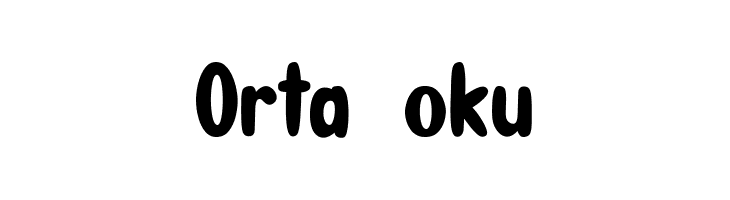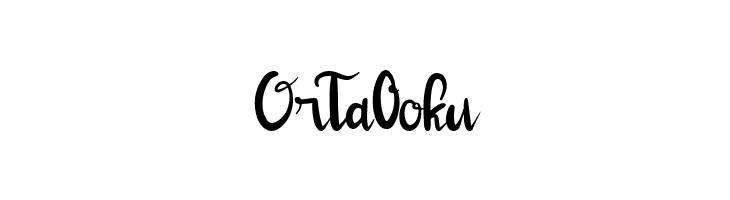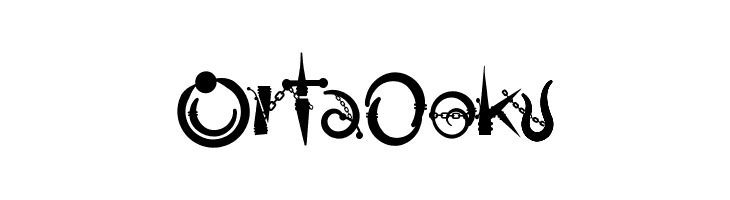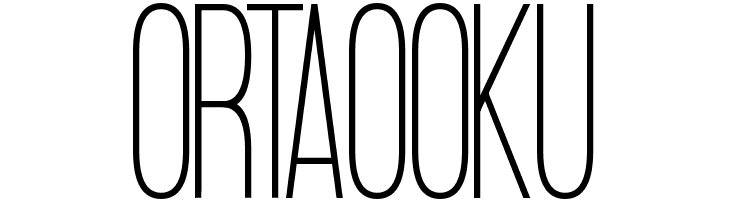
A brush-stroke font with a rustic, hand-painted appearance.
A bold, distressed font with a vintage, stencil-like appearance.
A whimsical and decorative serif font with playful curls and loops.
A bold, playful font with rounded edges and a modern, casual style.
An ancient script with wedge-shaped, angular characters used for monumental inscriptions.
A bold, angular font with a structured, formal style inspired by early 20th-century German design.
A bold, shadowed font with geometric forms and a modern twist.
A sophisticated cursive font with elegant, flowing strokes and dramatic contrasts.
A modern, geometric sans-serif font with clean lines and balanced spacing.
A modern, thin-lined font with a clean and sophisticated design.
A modern sans-serif font with rounded edges and a clean, approachable style.
A modern, clean sans-serif font with uniform strokes and rounded edges.
A bold, modern font with geometric and angular design elements.
A bold, geometric font with dynamic and stylized characters.
A playful and elegant script font with flowing, interconnected letters.
Handwritten script with tall, whimsical characters and playful strokes.
A bold, geometric font with strong visual impact and modern appeal.
A classic serif font with elegant, well-balanced strokes.
A playful, rounded font with smooth curves and a friendly appearance.
A bold, vintage-inspired font with strong, thick strokes and a commanding presence.
A dynamic and expressive handwritten font with fluid, flowing letterforms.
A bold, expressive script font with a dynamic, handwritten style.
A bold, modern font with elongated characters and a unique artistic style.
A playful, hand-drawn font with bold outlines and textured fills.
A bold, modern font with strong geometric shapes and consistent stroke width.
A classic serif typeface with elegant lines and moderate contrast.
A bold, modern font with thick, uniform strokes ideal for impactful headlines.
( Fonts by Christian Robertson, Adam Twardoch, & Cristiano Sobral - Personal-use only. For commercial use please contact owner. )
A modern, clean sans-serif font with balanced spacing and consistent stroke width.
( Fonts by Christian Robertson, Adam Twardoch, & Cristiano Sobral - Personal-use only. For commercial use please contact owner. )
A bold, modern sans-serif typeface with clean lines and strong presence.
( Fonts by Christian Robertson, Adam Twardoch, & Cristiano Sobral - Personal-use only. For commercial use please contact owner. )
A bold, modern sans-serif font with clean lines and balanced spacing.
A bold, italic sans-serif font with a modern and sleek design.